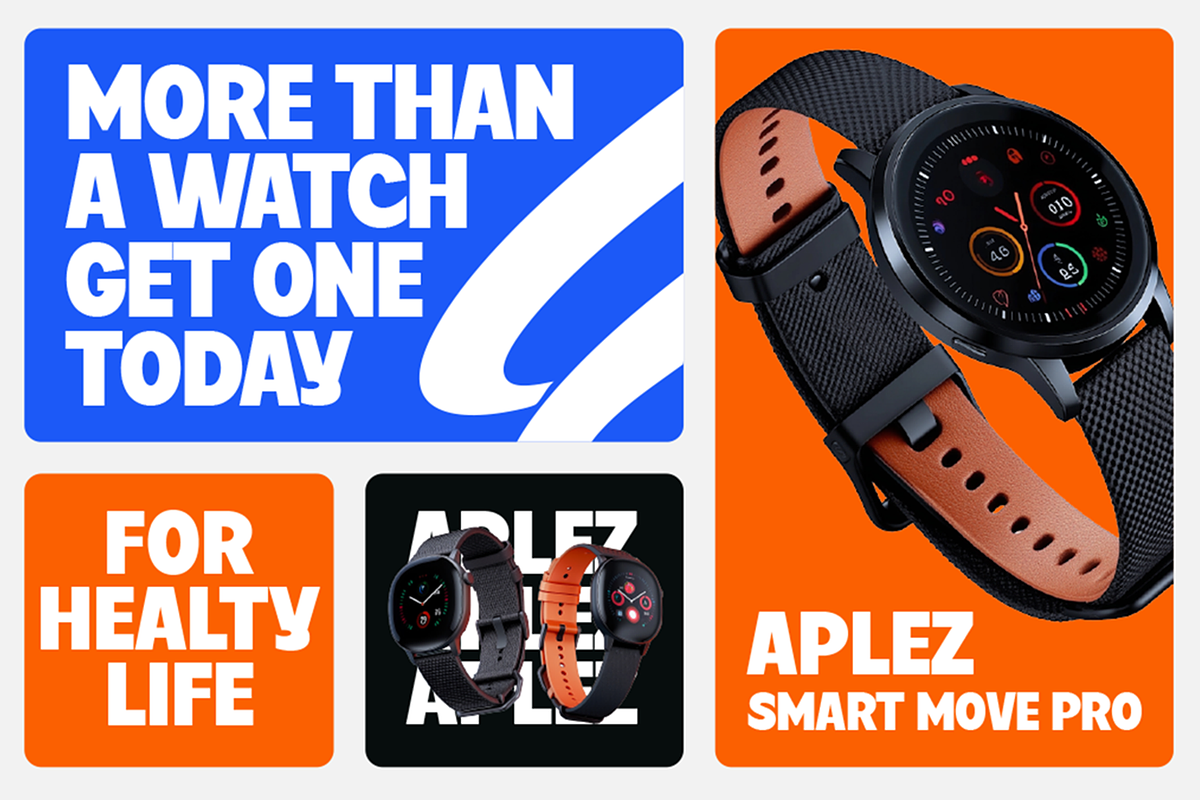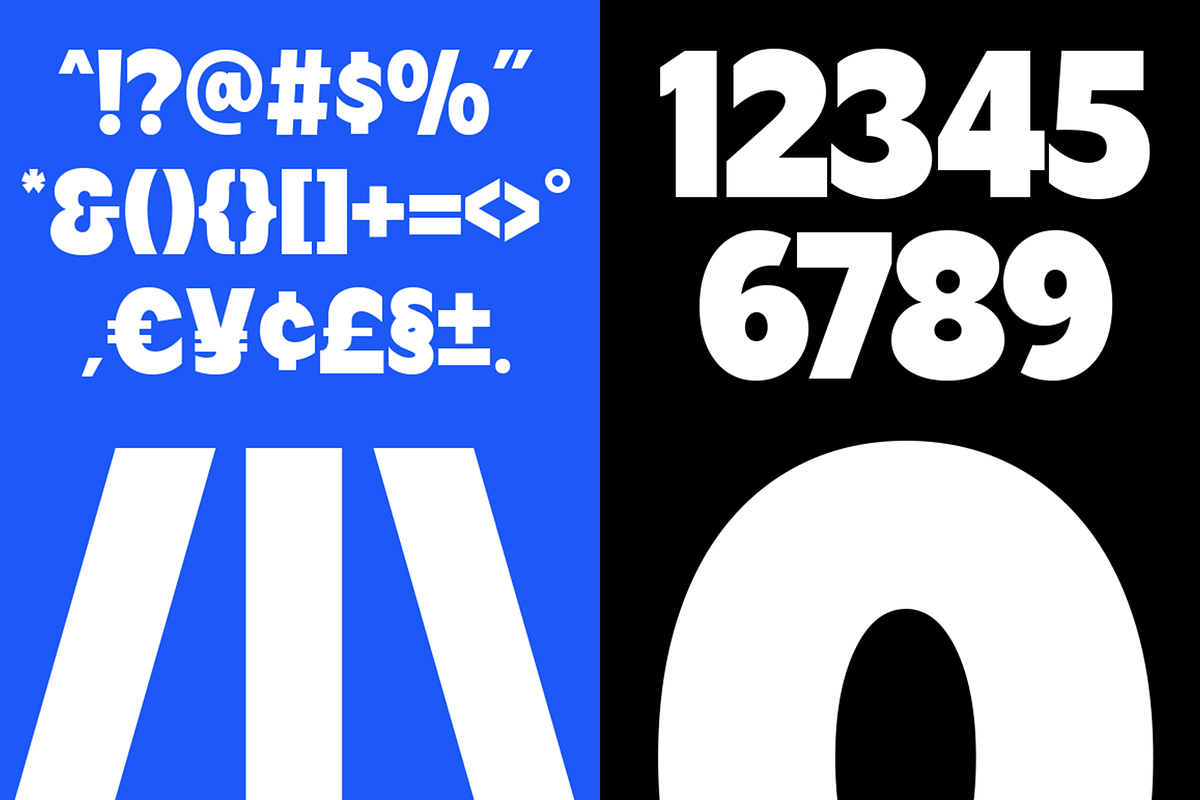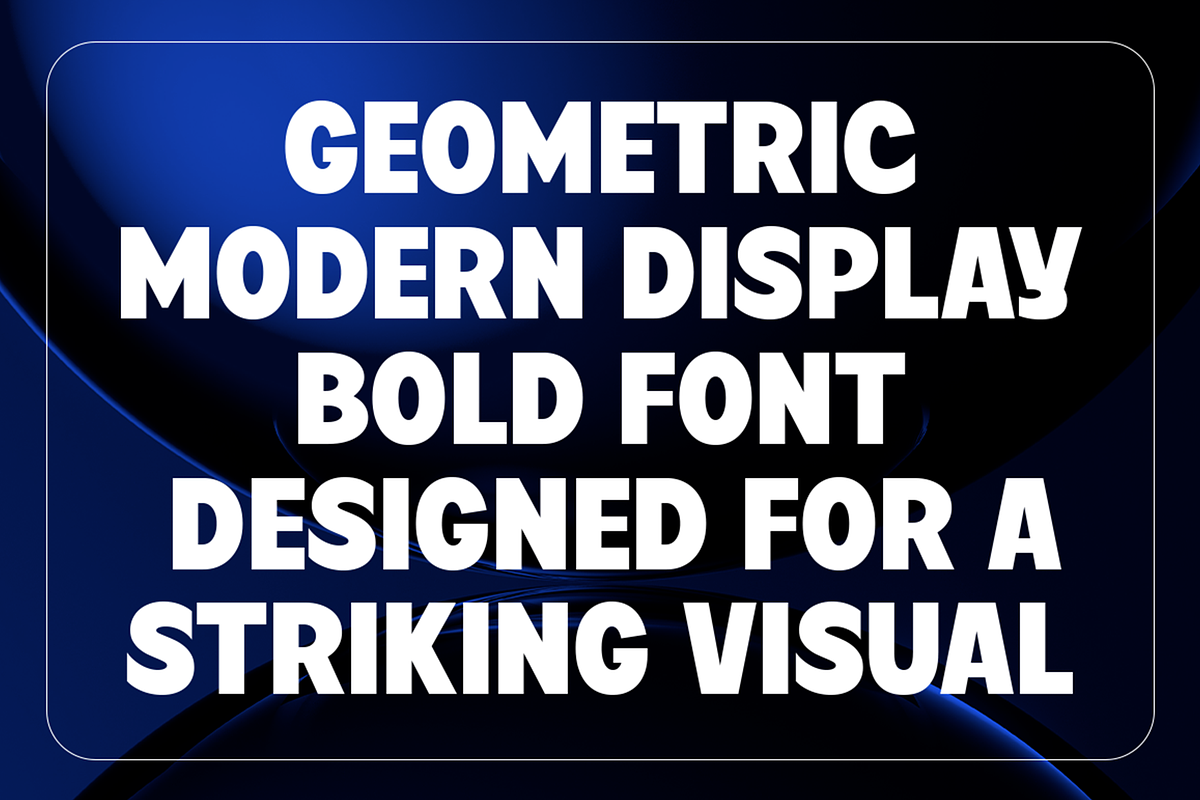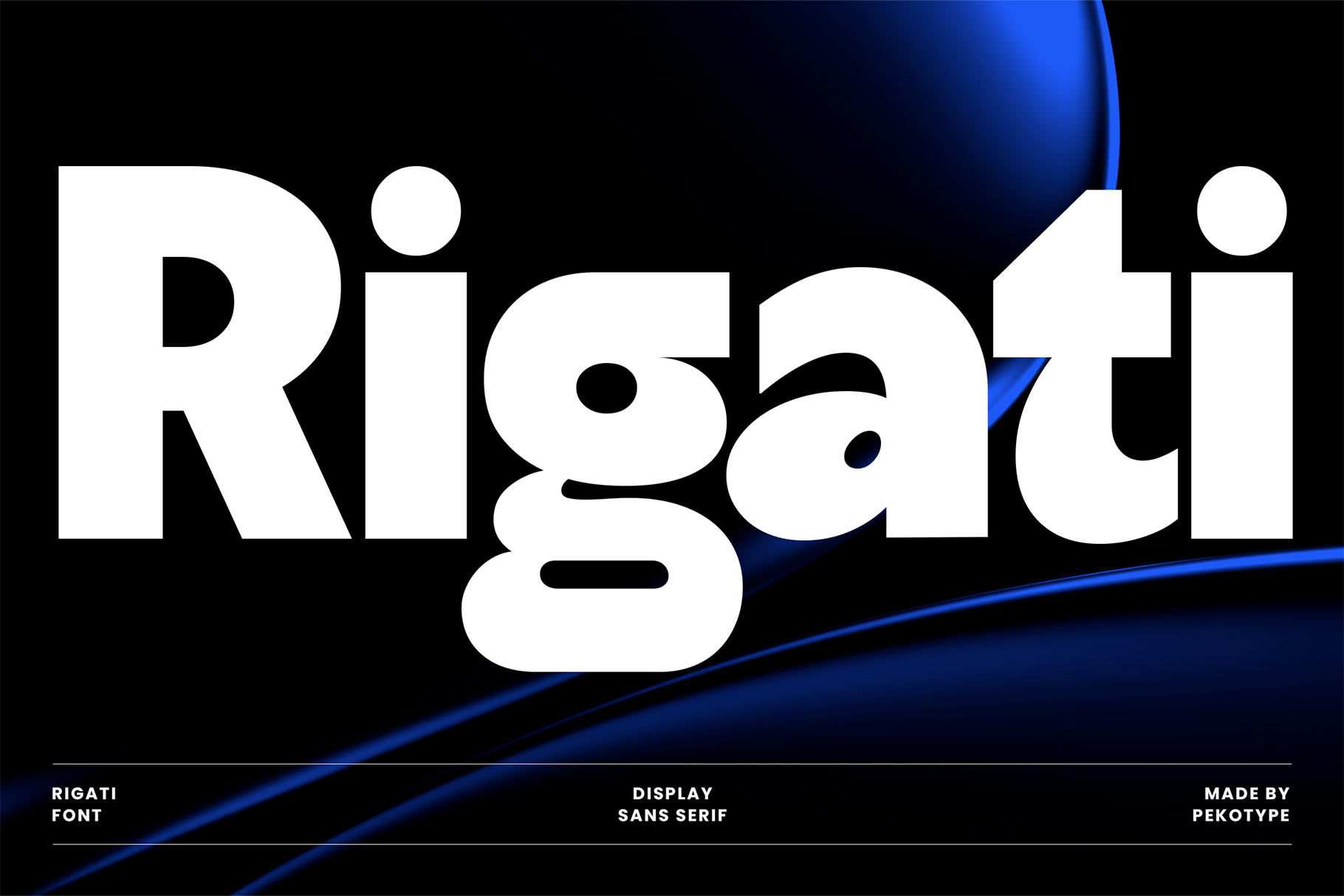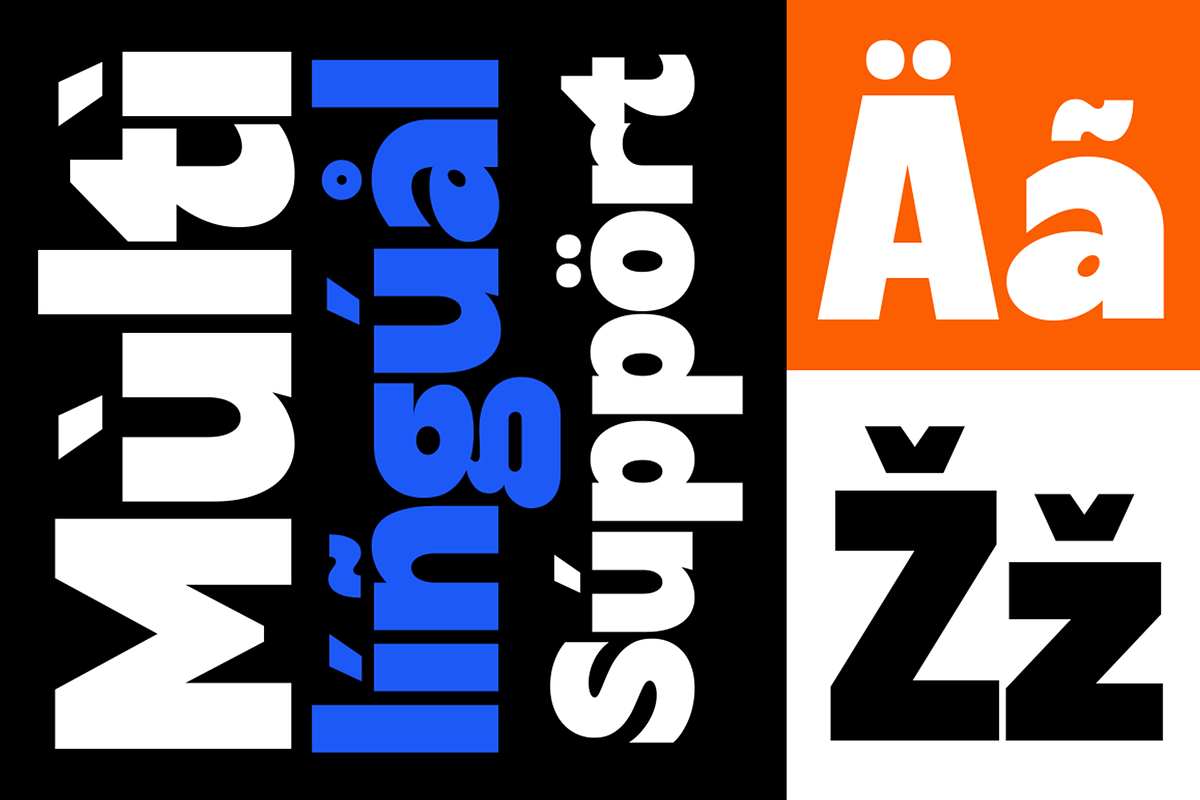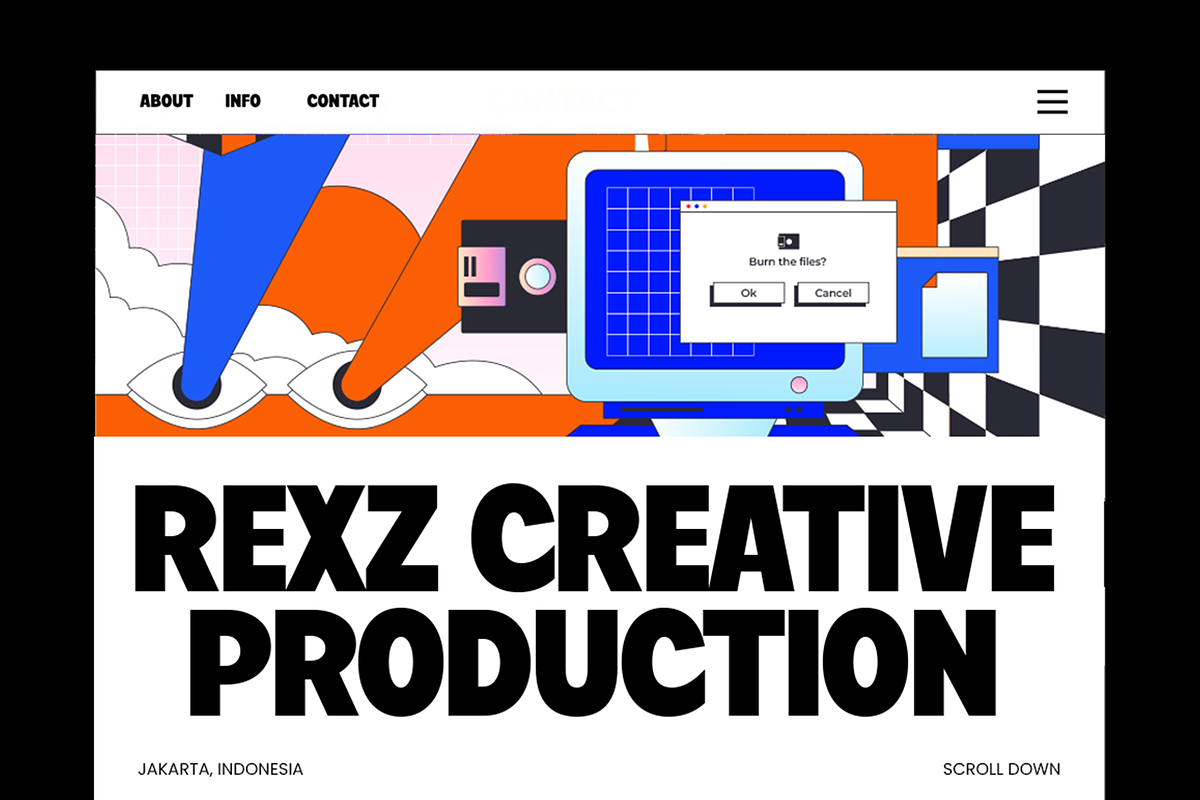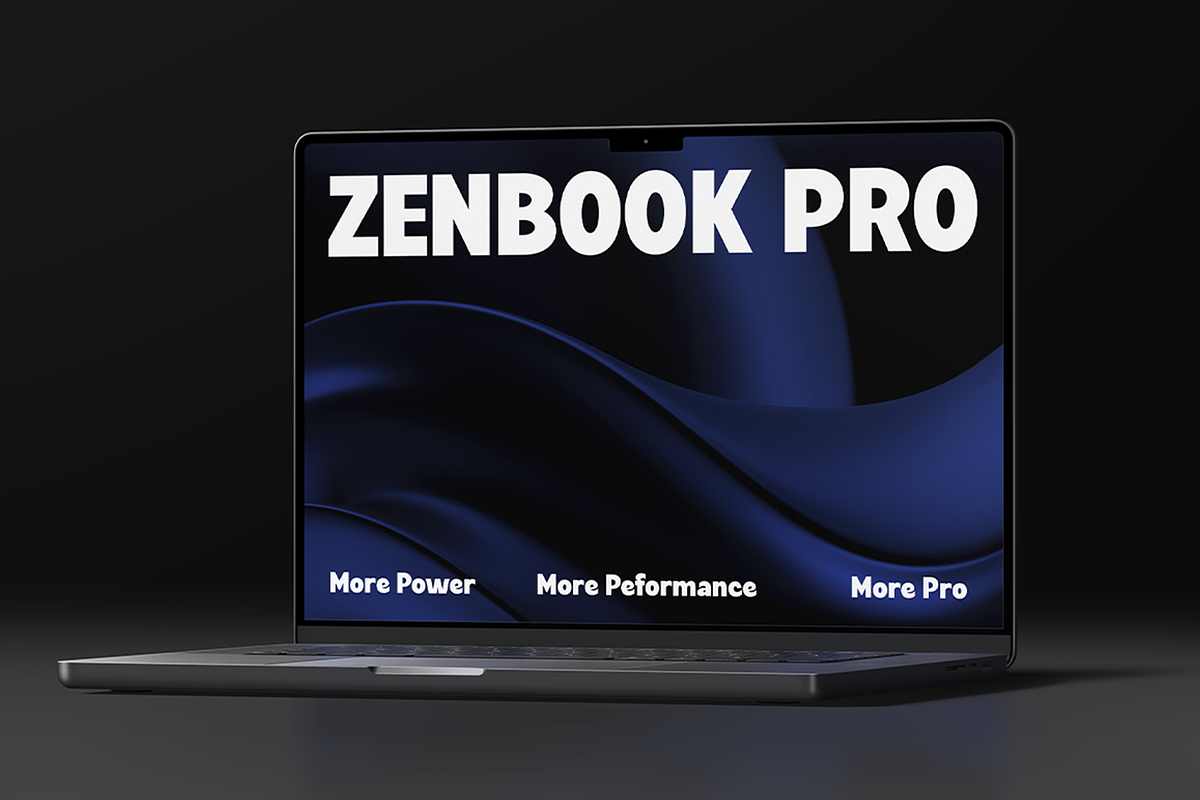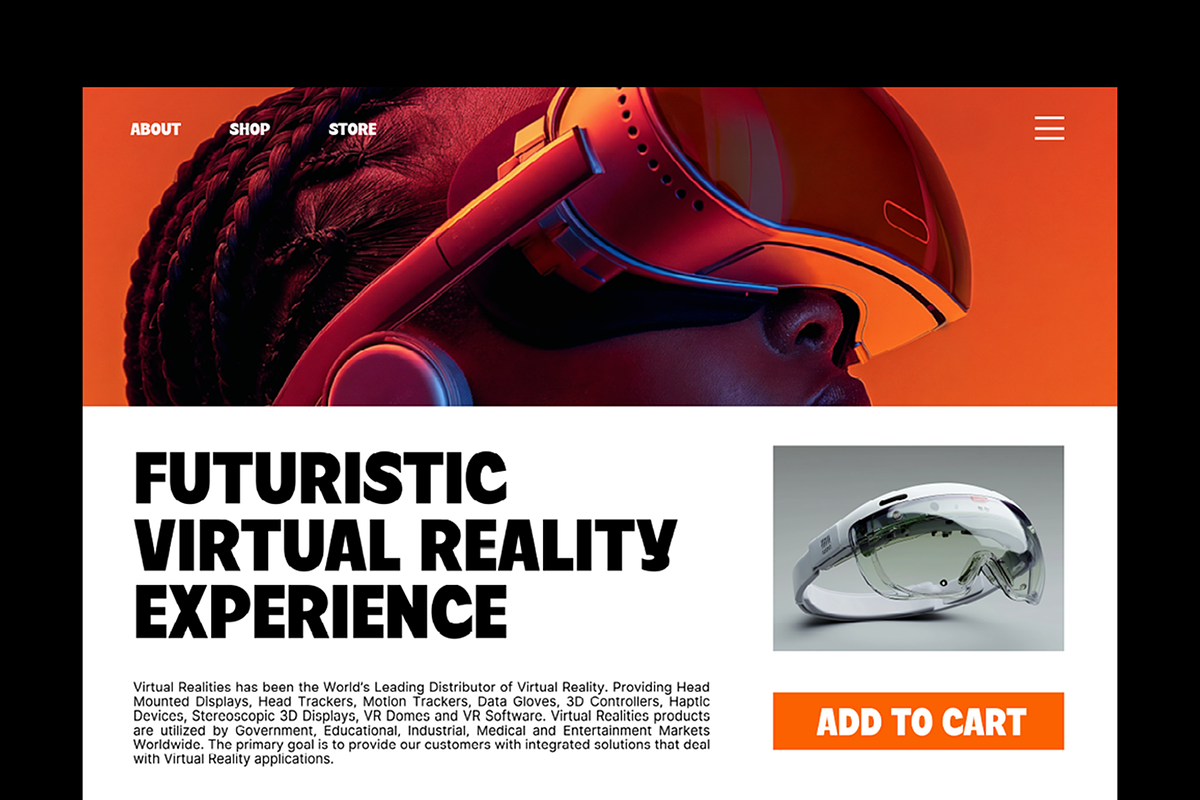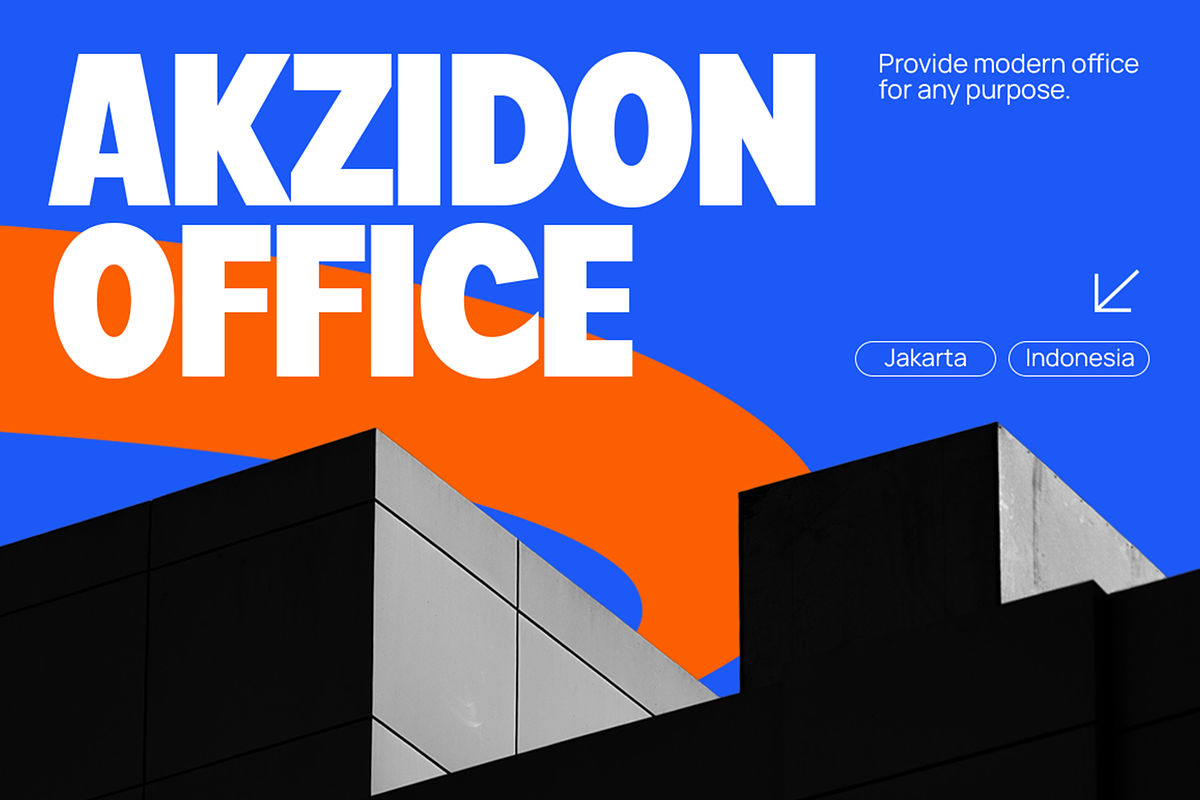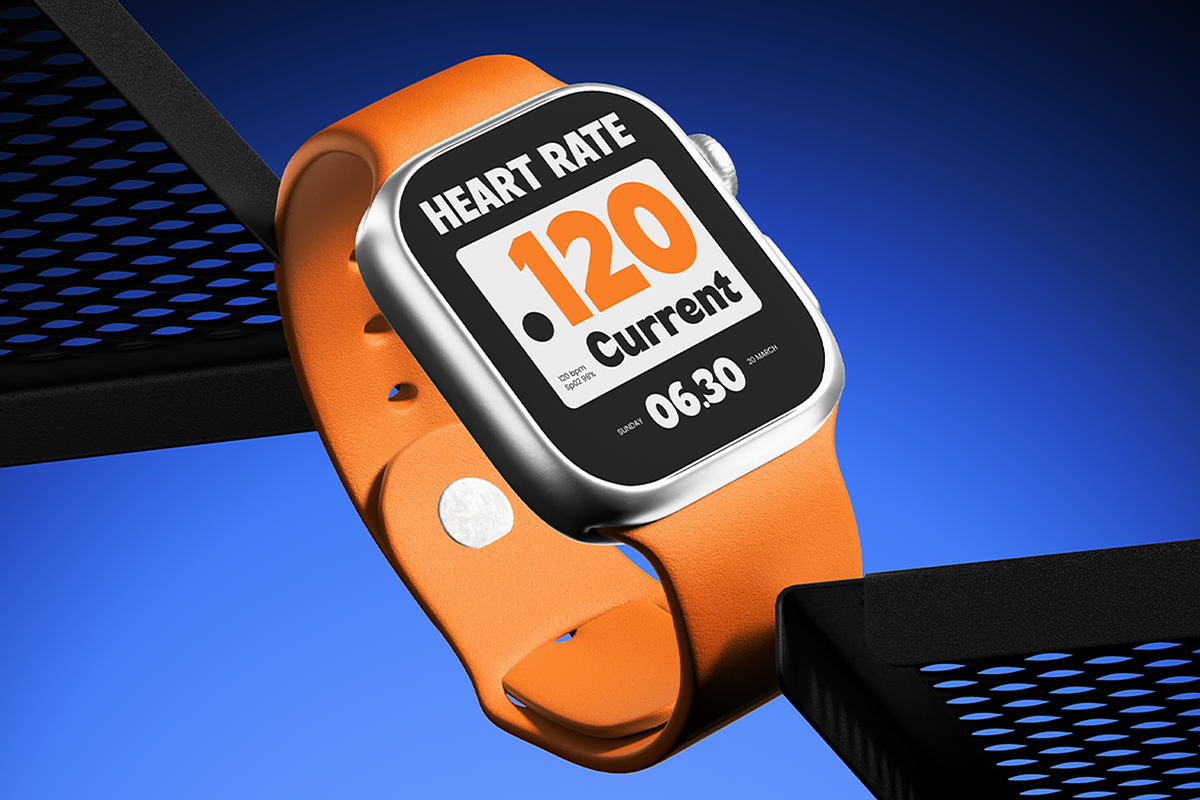
Rigati - Modern Bold Logo Font
Rigati is a bold, modern font designed to make your designs pop. It features clean, geometric shapes that look both professional and futuristic. If you want a font that looks "expensive" but is still easy to read, Rigati is the perfect choice to give your work a sharp, high-end look.
This font works great for almost anything tech-related or modern—like cool logos, sleek website headers, and stylish posters. It’s perfect for branding gadgets, apps, or even bold advertisements. Whether you're making a flyer for a "Flash Sale" or a logo for a new tech startup, Rigati makes sure your design looks clean, confident, and ready for the future.